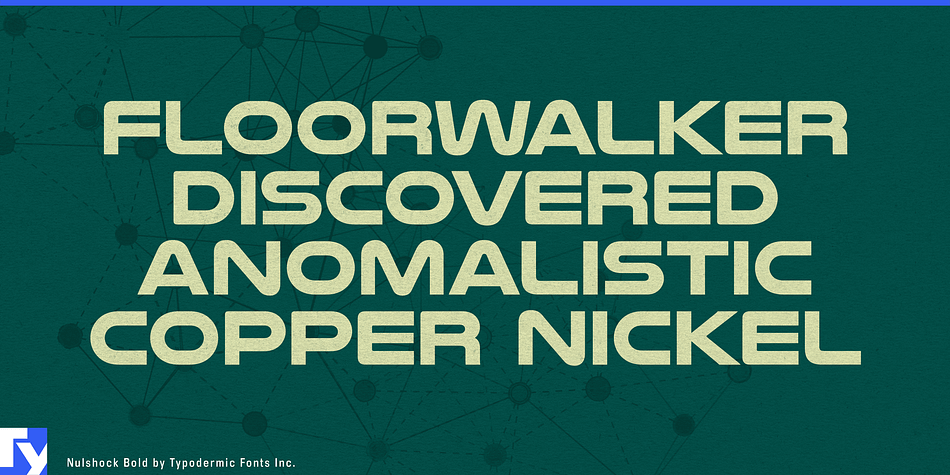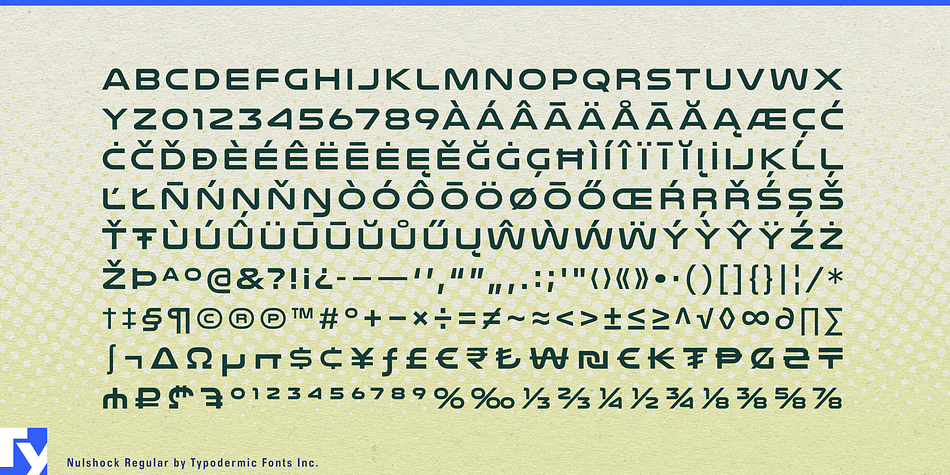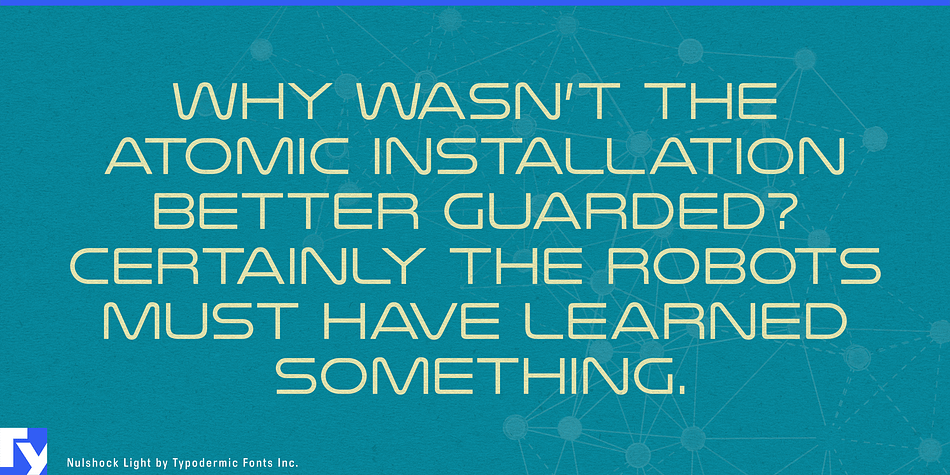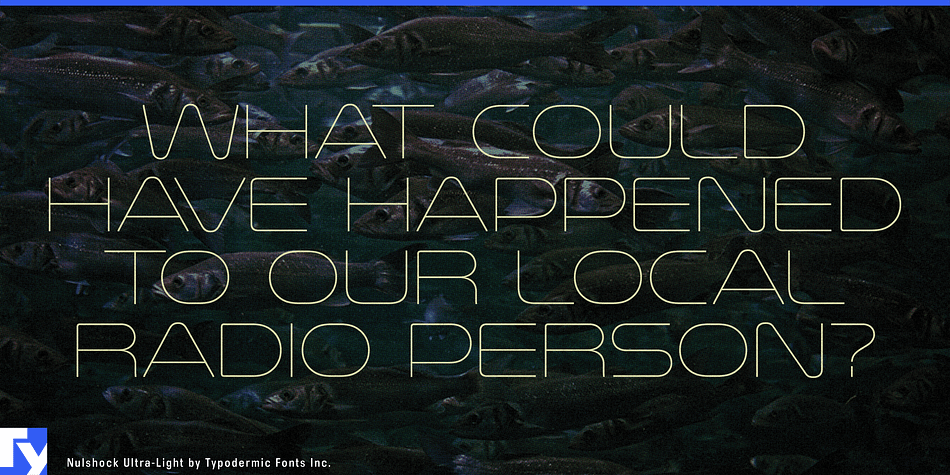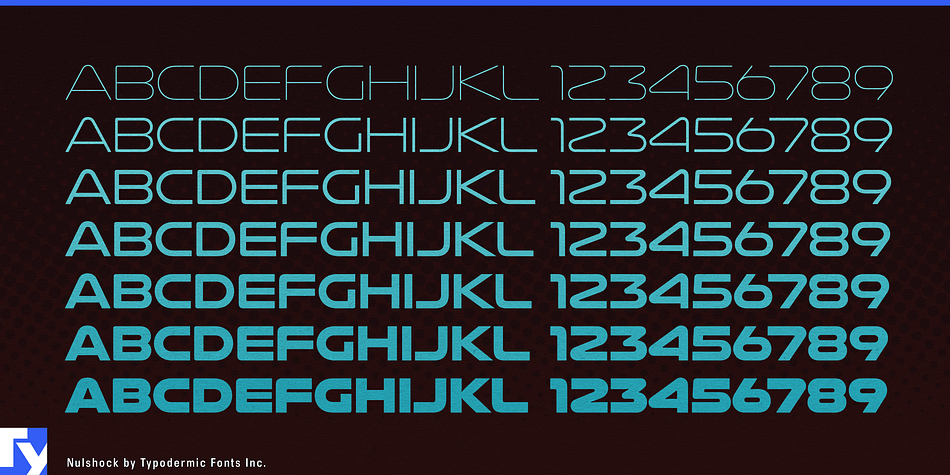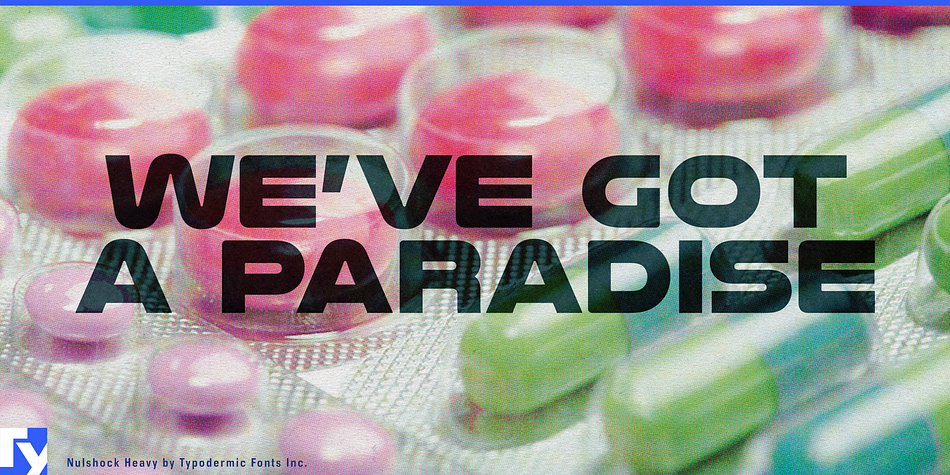
Nulshock is a display sans font family. This typeface has seven styles and was published by Typodermic Fonts Inc.
Nulshock is a wide, industrial headliner. Precise, mechanical curves and optical compensation make Nulshock breathe easy in high tech environments. Nulshock wasn’t developed with the intention of displaying paragraphs of text—it was optimized for headlines, labels, indicators, logos, product names and titles. A range of seven weights makes it effective for fine-tuning visual impact. The Nulshock family includes math symbols, monetary signs, fractions and numeric ordinals.